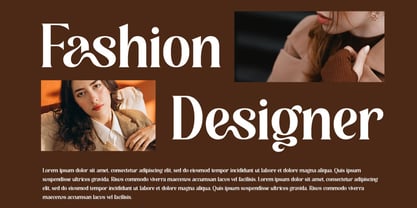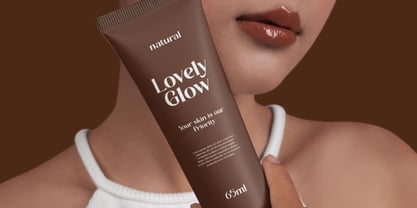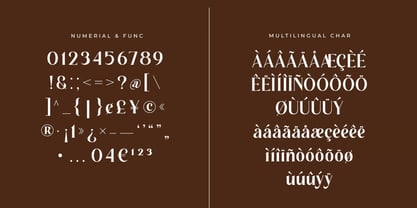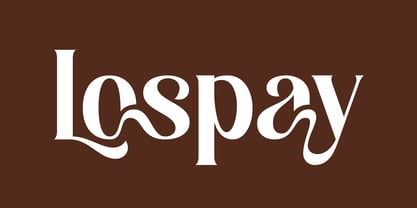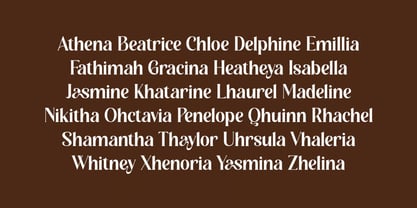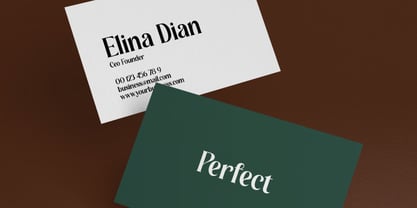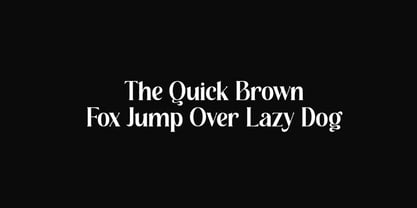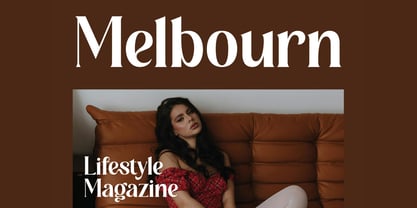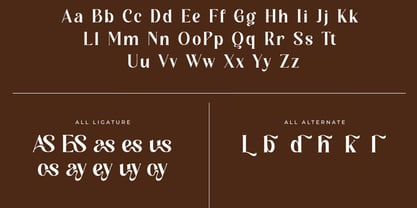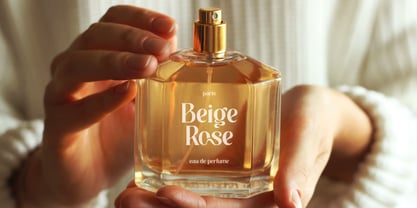
Lospay
Lospay is an elegant serif font designed to embrace grace, femininity, and timeless sophistication. With its refined character and polished typographic style, Lospay brings a delicate yet confident presence to every creative project. Its sophisticated serif aesthetic makes it an excellent choice for designers seeking typography that feels beautiful, graceful, modern, and effortlessly luxurious.
Perfectly suited for contemporary lifestyle and premium branding, Lospay works beautifully across a wide range of applications. From elegant logos and fashion branding to wedding invitations, magazine covers, product packaging, photography, and social media graphics, this versatile serif typeface adds a refined touch to any composition.
Whether you're creating a feminine brand identity, a sophisticated editorial layout, a romantic wedding design, or a premium product label, Lospay helps transform ordinary typography into an elegant visual statement.
✿ Key Features:
• Elegant Serif Design: Refined letterforms with a graceful and sophisticated appearance.
• Feminine & Stylish Character: Beautifully suited for designs that require softness, elegance, and charm.
• Timeless Aesthetic: Combines classic serif inspiration with a modern lifestyle feel.
• Versatile Typography: Adaptable for branding, editorial, packaging, advertising, and digital design.
• Premium Visual Appeal: Adds a luxurious and polished finish to creative compositions.
• Display-Friendly Style: Excellent for logos, titles, headlines, covers, and prominent typography.
✿ Perfect For:
• Luxury Branding & Logo Design: Create elegant and memorable brand identities.
• Fashion & Lifestyle Branding: Perfect for boutiques, fashion labels, beauty brands, and lifestyle businesses.
• Wedding Invitations & Stationery: Add a romantic and sophisticated touch to wedding designs.
• Magazine & Editorial Design: Ideal for magazine covers, titles, headlines, and editorial layouts.
• Product Packaging & Labels: Perfect for cosmetics, skincare, perfumes, candles, and boutique products.
• Social Media Design: Create stylish posts, quotes, announcements, and branded content.
• Photography & Watermarks: Give photography projects an elegant and professional signature.
• Advertising & Marketing: Enhance promotional campaigns with sophisticated typography.
• Special Events: Ideal for invitations, menus, signage, event stationery, and celebration branding.
Bring grace, femininity, and timeless elegance to your creative work with Lospay—an elegant serif font designed for luxury branding, fashion, wedding stationery, editorial layouts, product packaging, photography, social media, advertising, and sophisticated lifestyle designs. Let Lospay give every project an effortlessly beautiful and refined typographic touch.